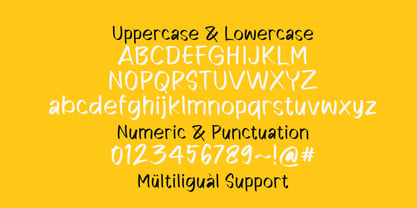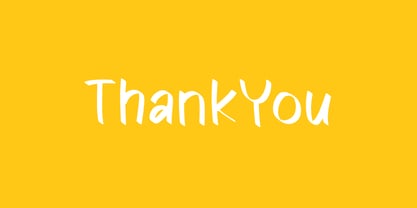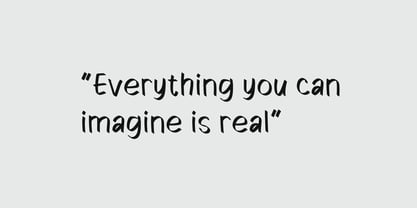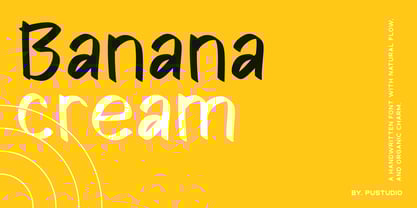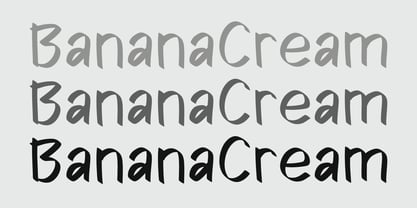
Banana Cream
by pustudio
The Banana Cream Font Family was designed by Haris Prawoto and published by pustudio. Banana Cream contains 1 styles. More about this family
Bananacream is a soft and natural handwritten font designed to add a personal touch to various design needs. With its signature fluid strokes, this font is both readable and aesthetically pleasing, making it ideal for branding, packaging, social media, quotes, invitations, and editorial design. Its organic and flowing character exudes warmth and professionalism, making it the perfect choice for designers seeking a natural yet functional look.